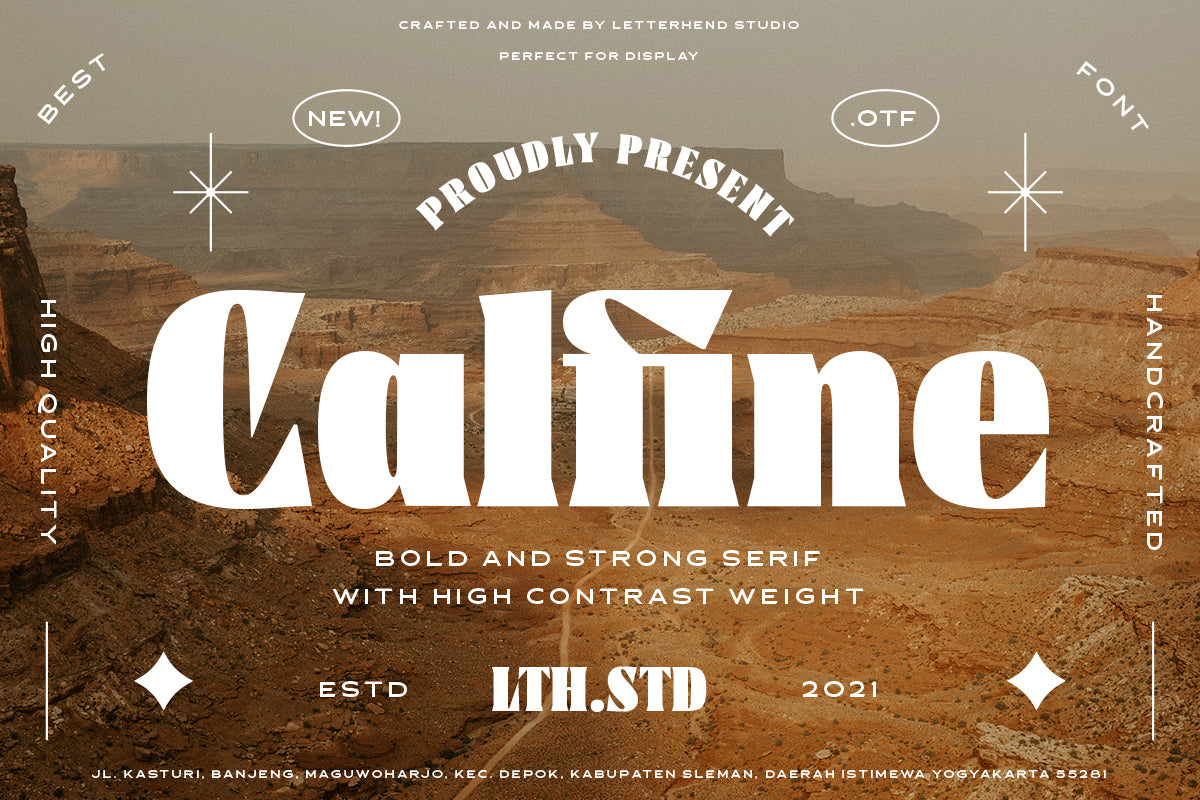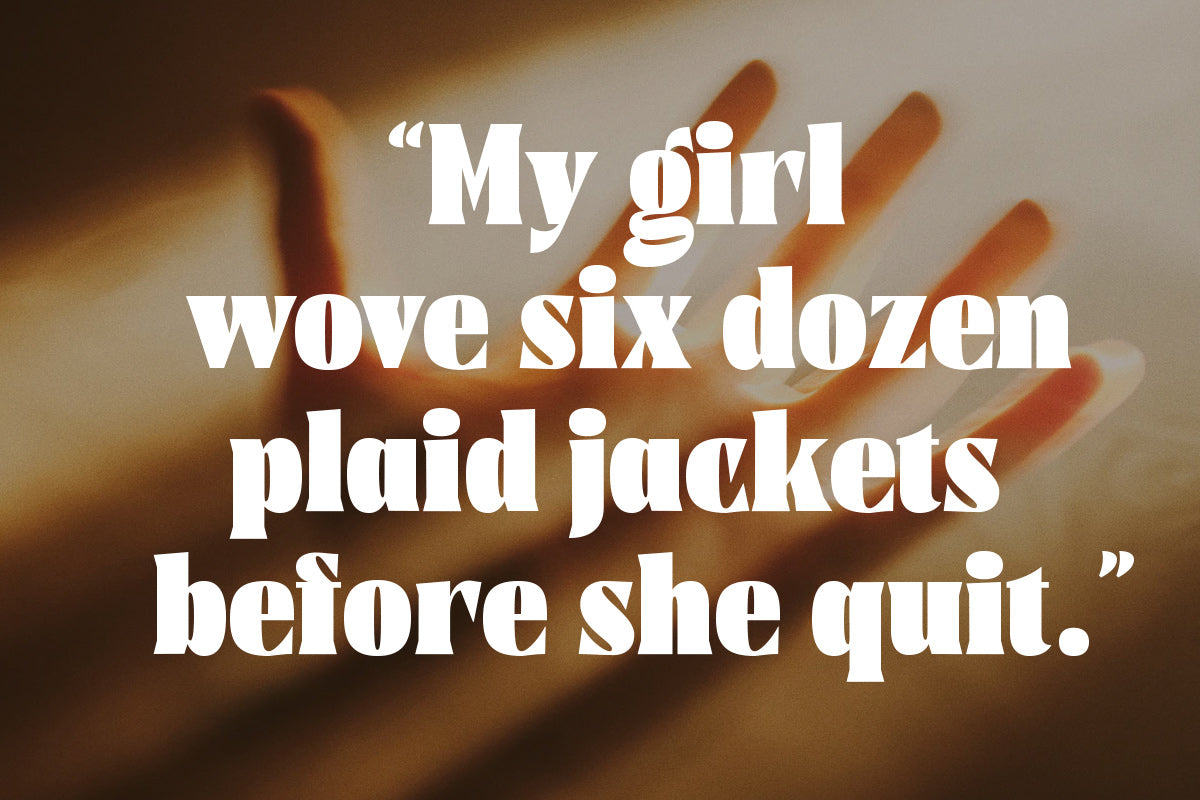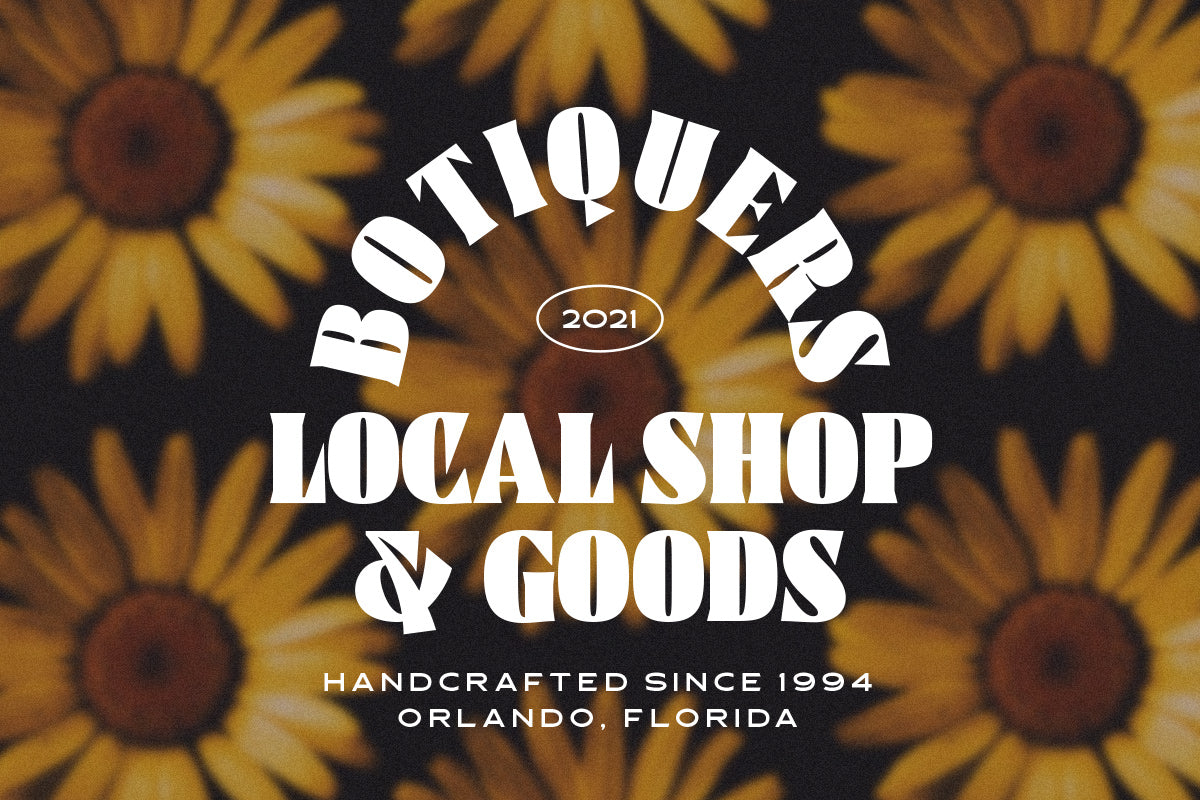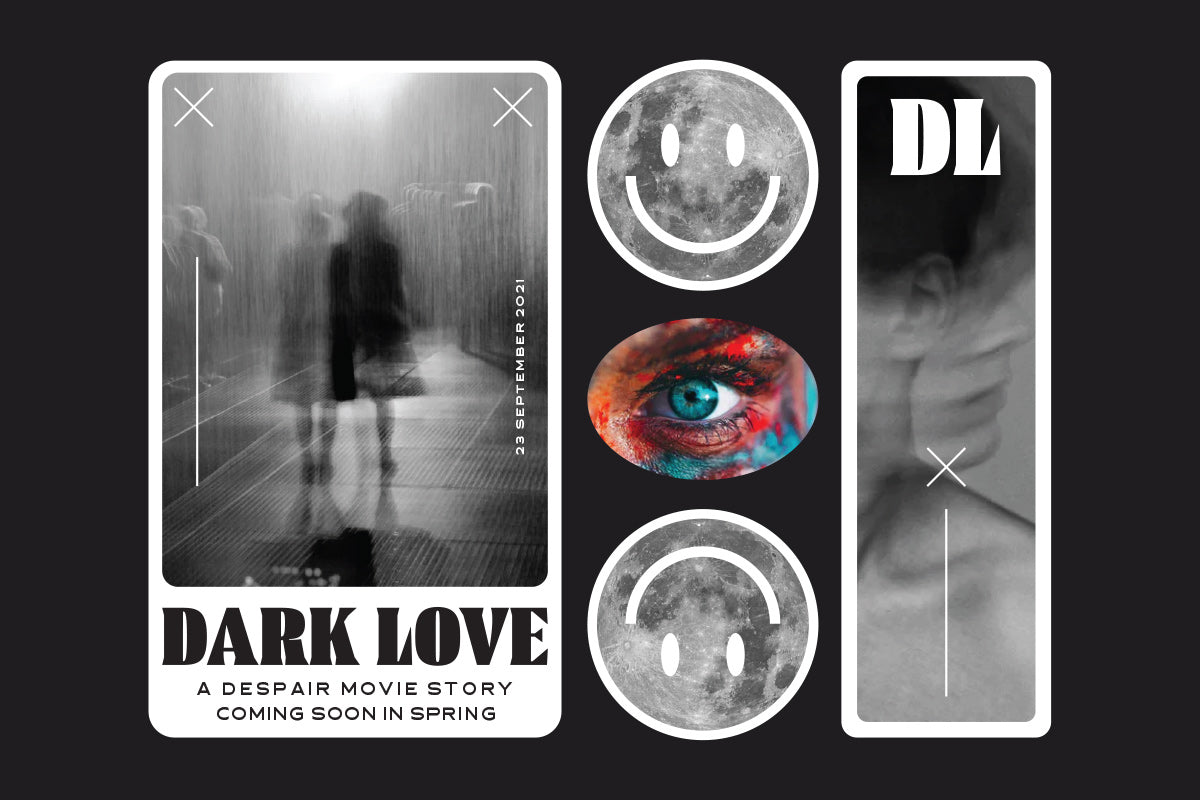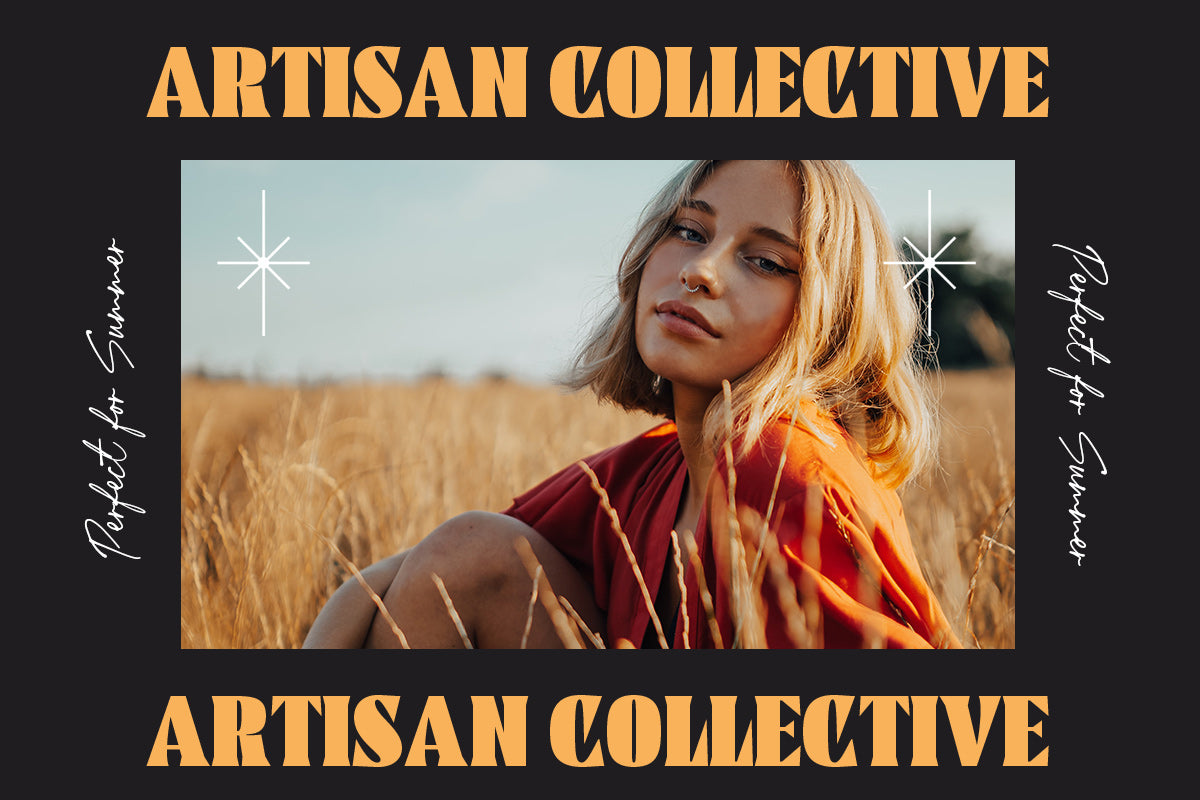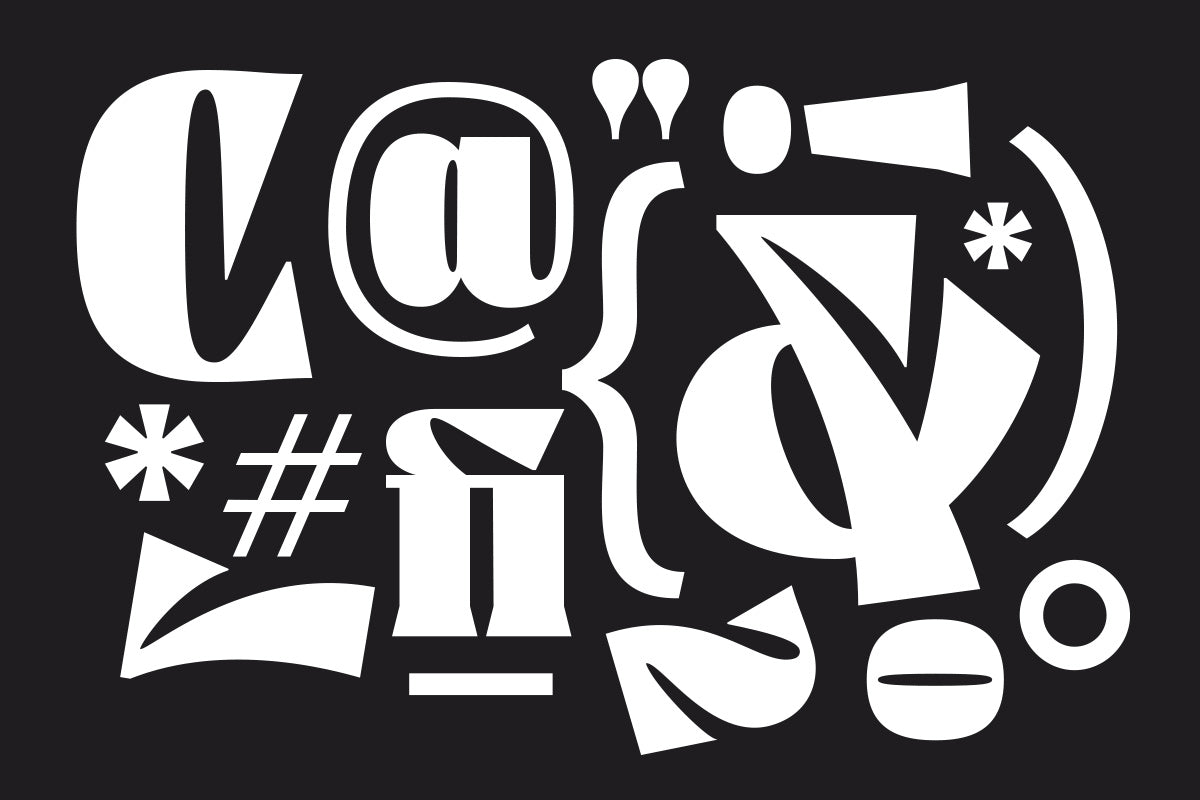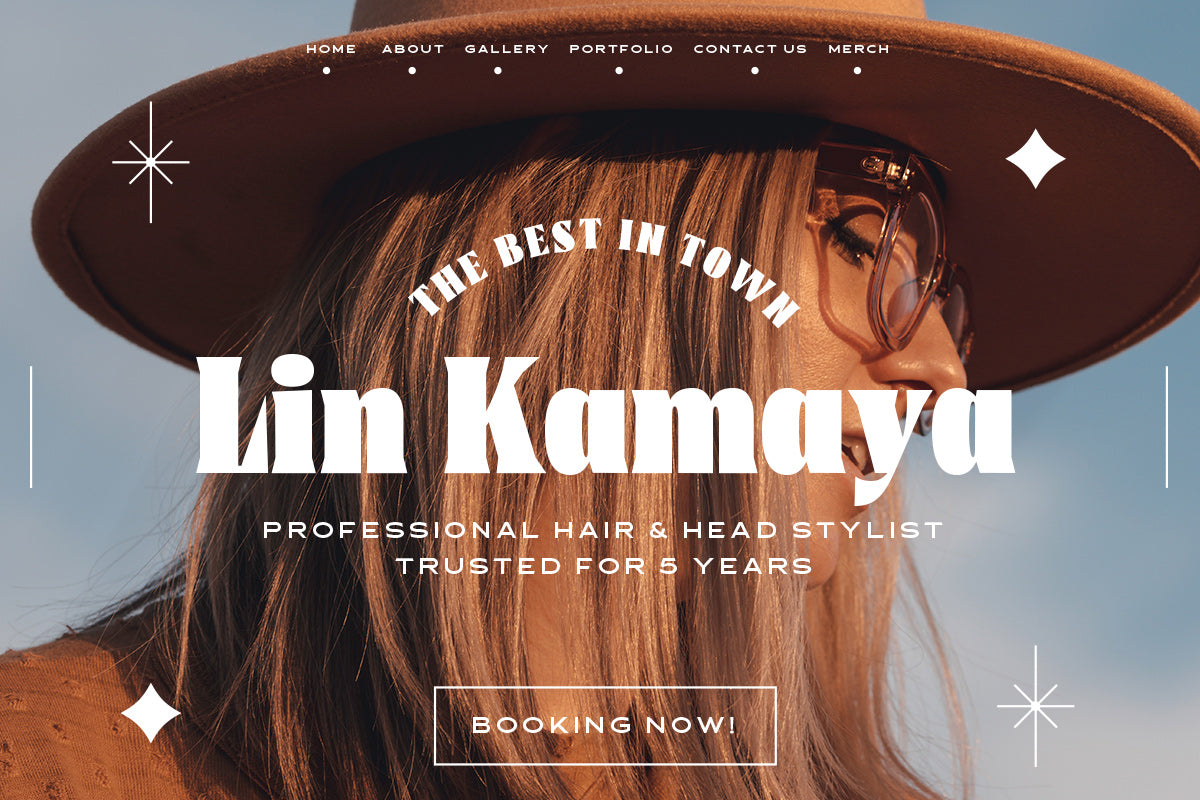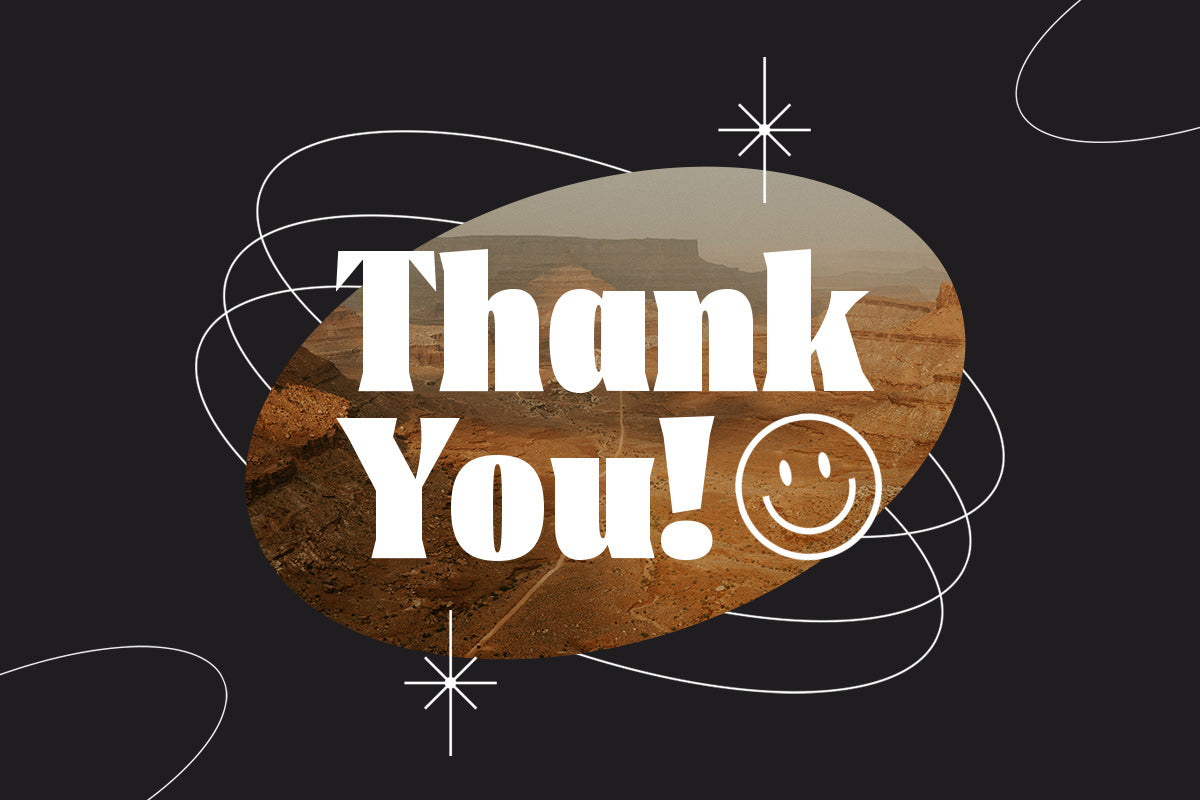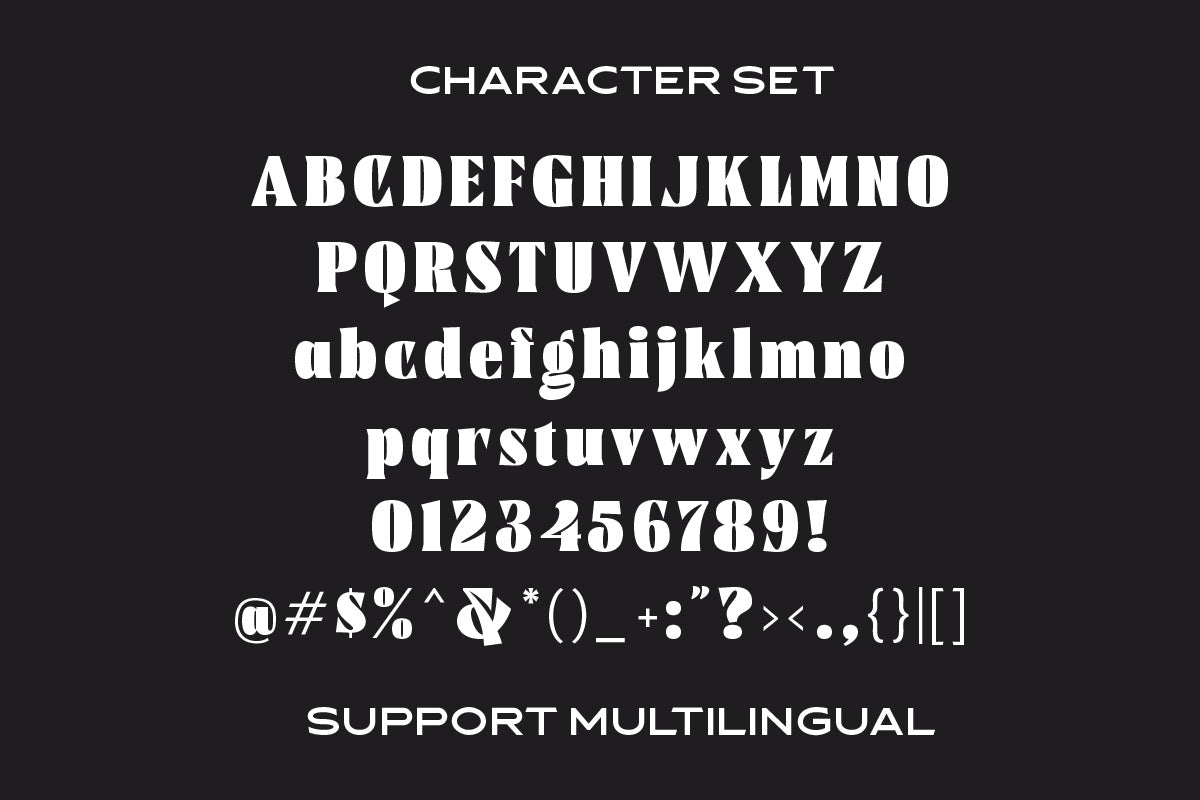
Calfine - Bold Serif
Introducing Calfine, a Bold and strong serif with high contrast weight. This font is very suitable to be used as a title or display, making it looks great and stand out from the crowd. This font is perfectly designed for use in various formal applications, such as logos, invitations, labels, magazines, books, greeting/wedding cards, packaging, fashion, makeup, stationery, novels, and any type of advertising purpose.
Features :
uppercase & lowercase
numbers and punctuation
multilingual